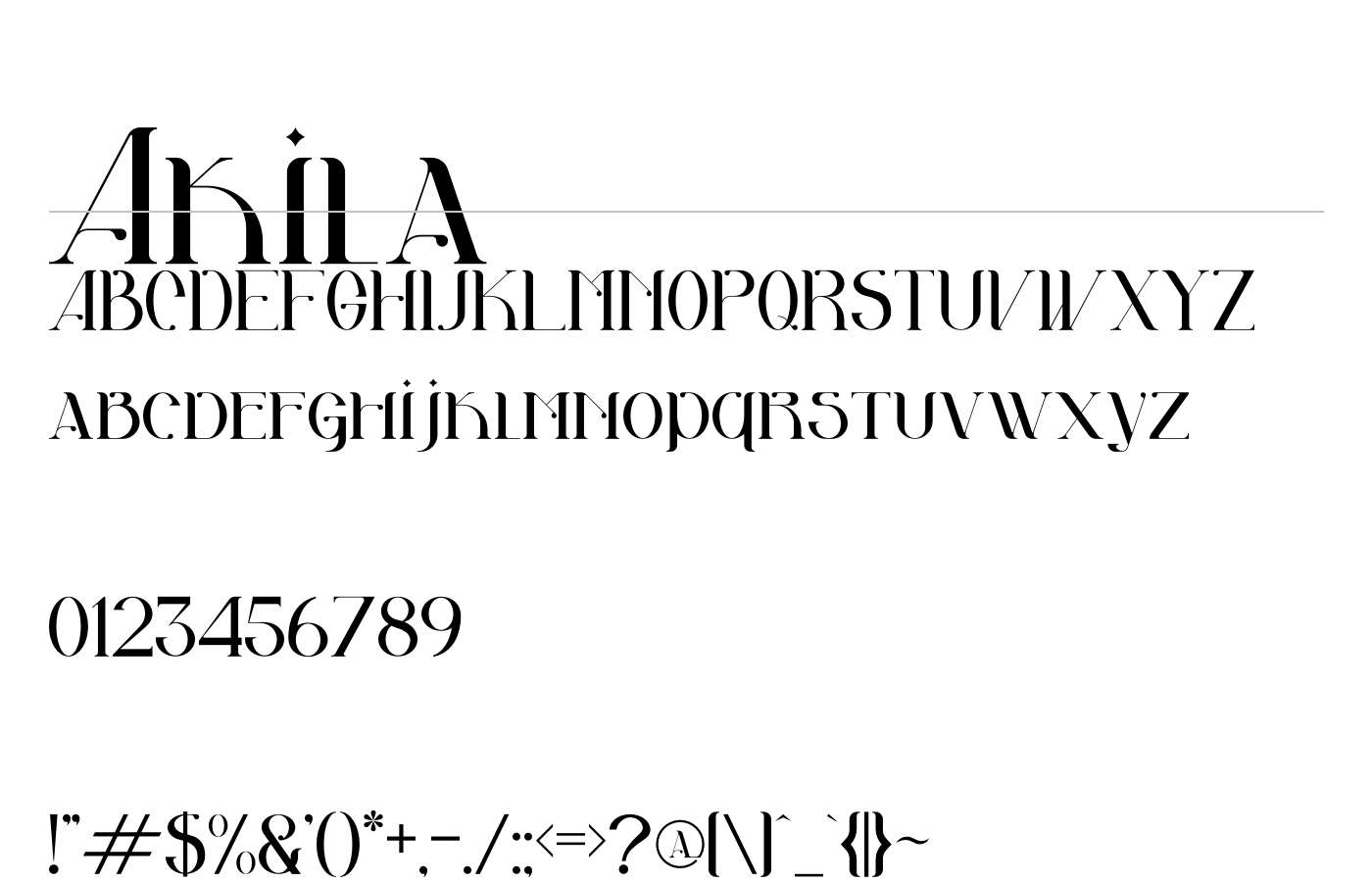
Akila is an elegant serif font with a high contrast between thick and thin strokes, featuring a slender and tall design that gives it a refined and sophisticated appearance. Its unique letterforms blend classic serif traits with modern styling, making it ideal for luxury branding, high-end editorial projects, and stylish logos that require a touch of distinction and grace. This font works best in large sizes where its intricate details can shine, adding a timeless yet contemporary feel to any design.
Akila Font
About Akila Font